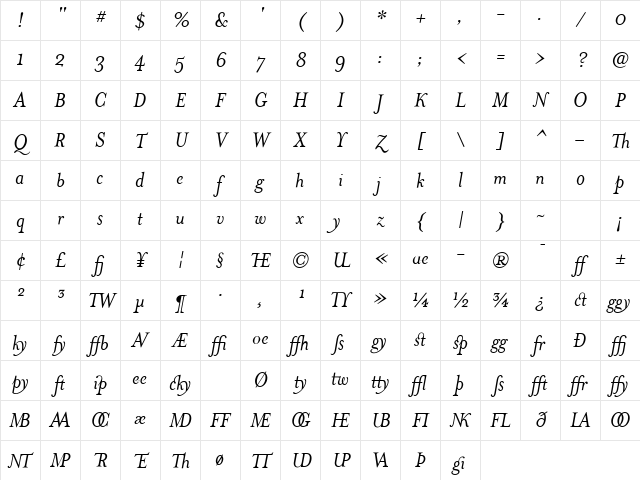
MrsEavesSmartLig Medium Italic
Foundry: C) Emigre Graphics, Designed by Zuzana Licko
Design Context for MrsEavesSmartLig
MrsEavesSmartLig is a composed and adaptable typeface that performs quietly and consistently across a wide range of design contexts. The slanted form adds forward momentum and visual energy.
Who designed the MrsEavesSmartLig Medium Italic font?
This font was published by C) Emigre Graphics, Designed by Zuzana Licko. Check the technical specs section for copyright and designer details.